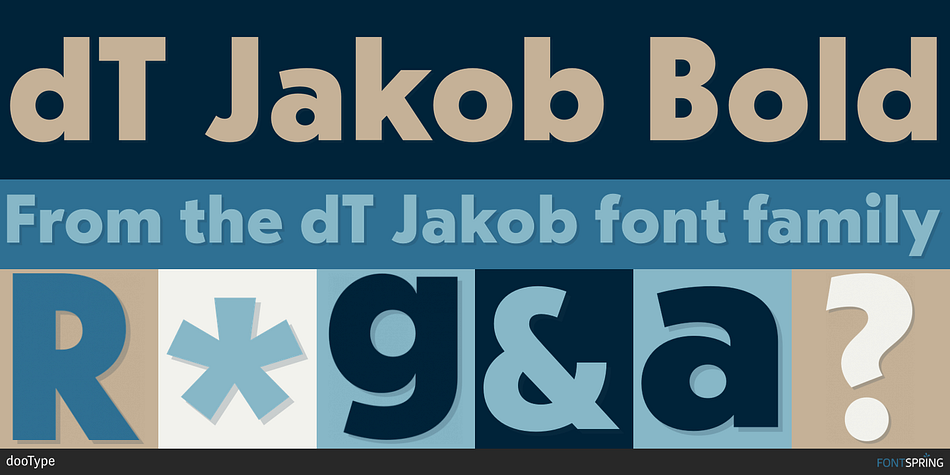
dT Jakob Bold
Designed by Eduilson Wessler Coan and Gustavo Soares, dT Jakob is a sans serif font family. This typeface has fourteen styles and was published by dooType.
dT Jakob started as a revival by Gustavo Soares for Paul van der Laan’s class at the Type and Media Masters, in The Hague, NL – back in 2007. There are quite a few excellent geometric sans typefaces available, but we did want to make our contribution and have a fine geometric face to offer.
dT Jakob was born out of Erbar, by Jakob Erbar, one of the very first geometric sans, released in metal around 1926. Our goal was to make a versatile typeface, that handles display and text typography beautifully. To achieve that we designed a complete range of weights, matching italics and lots of OpenType Features.
Opentype Features:
- Localized Forms
- Subscript
- Superscript
- Scientific Inferiors
- Localized Forms
- Numerator
- Denominator
- Fraction
- Lining Figures
- Oldstyle Figures
- Tabular Figures
- Case Sensitive
- All Alternates (aka ss01)
- Straight Terminals (aka ss02)
- Geometric Figures (aka ss03)
- Punchy Quotation Marks (aka ss04)
- Traditional Ampersand (aka ss05)
- Angled Cut Plus Sign (aka ss06)
- Slim Question Mark (aka ss07)